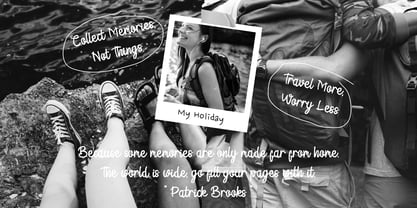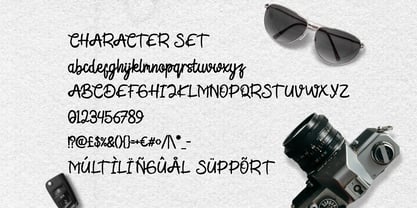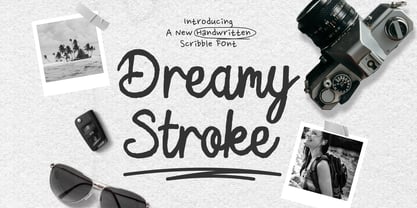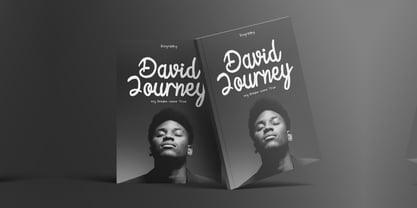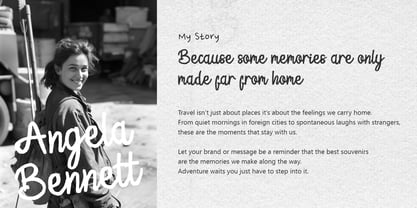
Dreamy Stroke
by Shanaf
The Dreamy Stroke Font Family was designed by Yesie Erma Yunita and published by Shanaf. Dreamy Stroke contains 1 styles. More about this family
Dreamy Stroke Handwritten Script Font captures the beauty of authentic handwriting with a soft, relaxed flow. Each stroke feels personal and organic, as if written with a fine marker on textured paper. The letters are slightly rounded and connected, creating a smooth and consistent rhythm that enhances its legibility and warmth. The font’s medium thickness gives it balance—neither too bold nor too light—making it versatile for both digital and print designs. Dreamy Stroke Handwritten Script Font blends a spontaneous doodle energy with a refined script form, perfect for designers who want to add a touch of sincerity and creativity to their work. This font is ideal for travel branding, lifestyle projects, packaging, postcards, book covers, and motivational quotes. It works beautifully for logos, headlines, or any project that needs a natural handwritten feel. The casual yet thoughtful form brings emotion and charm to every word, making it great for storytelling visuals or holiday designs. Dreamy Stroke Handwritten Script Font helps every project speak with authenticity and warmth, making it a must-have for artists, bloggers, and creative professionals who love expressive, heartfelt typography.
Designers: Yesie Erma Yunita
Foundry: Shanaf